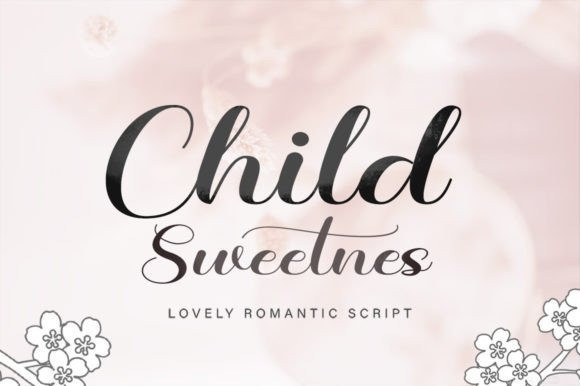
Child Sweetnes Font
The Child Sweetnes Font is a new, fun, and playful handwritten font. Perfect script font for invitations, logos, notes, posters, t-shirts, stickers, posters, mugs, labels, etc.